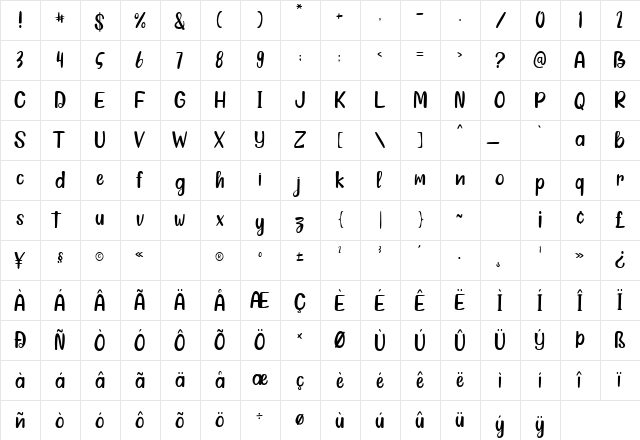
Summerbee Regular
Design Context for Summerbee Typeface
Summerbee is a composed and adaptable typeface that performs quietly and consistently across a wide range of design contexts.
Pro Tip: Pair Summerbee with a font of contrasting weight or personality to build a more expressive typographic hierarchy.